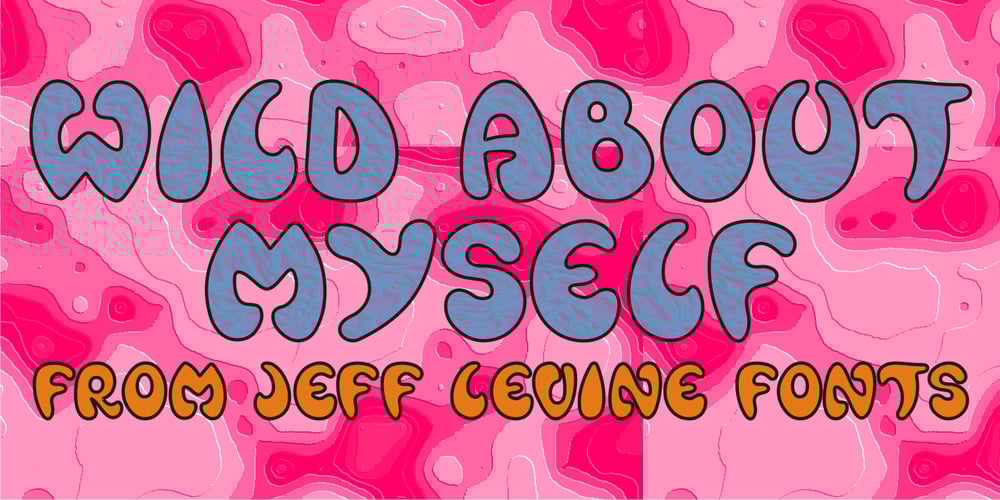
Wild About Myself JNL Font Family was designed by Jeff Levine and published by Jeff Levine. Wild About Myself JNL contains 1 styles and family package options. Lettering found on the cover of the 1923 song “I Love Me (I’m Wild About Myself)” can take on various graphical possibilities. Although its design is Art Nouveau in concept, it is somewhat reminiscent of the “bubble letters” most school kids used to doodle on notebook and portfolio covers; yet the lettering style also evokes the 1960s-70s Hippie movement. As a sidebar, a couple of lines from the song’s lyrics were used by Jeff Levine’s late mother to chastise him as a youth when he got “a little too full of himself”. The lyrics were: “I love me! I’m wild about myself! I love me! My picture’s on the shelf!”